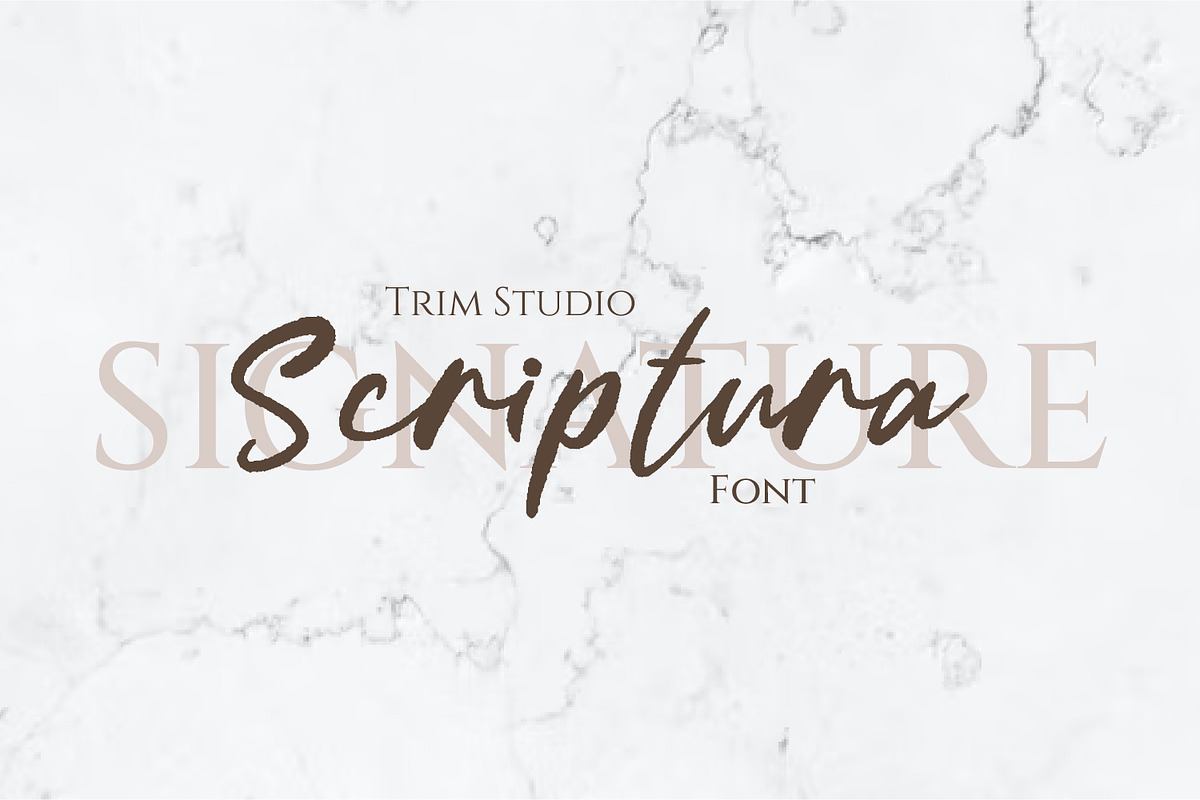
Scriptura – Handwritten Signature Font Free Download is an elegant and flowing typeface designed to emulate the sophistication of a personal signature. Please note, you are required to purchase this font for commercial use. It is available for free download for testing and personal projects only.
With its fluid strokes, stylish ligatures, and authentic handwritten feel, Scriptura is perfect for logos, personal branding, wedding invitations, product packaging, business cards, and high-end social media graphics. It adds a touch of refinement and personality to any design.